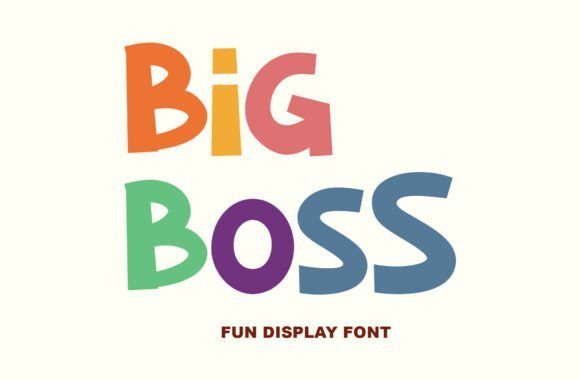
Adding a Dash of Fun to Your Designs: Introducing Big Boss Font
Who hasn’t had that moment when staring at a blank page, waiting for the perfect font to bring your design to life? The blank slate is daunting, but the possibilities are endless. For designers looking to inject some personality into their work, Big Boss Font is the perfect solution. This cheerful display font is designed to add a touch of whimsy and fun to any project.
Big Boss Font is more than just a font – it’s a statement piece. Its quirky letterforms and expressive shapes make it the ideal choice for projects that aim to convey joy and playfulness. Whether you’re designing a poster, invitation, or social media content, Big Boss Font is sure to capture attention and leave a lasting impression.
As a versatile font, Big Boss Font can be used across a wide range of creative projects, both digital and print. Its unique charm makes it a valuable asset for designers who want to stand out from the crowd and add a fun, unique touch to their work.
Big Boss Font Key Features
- Font Family: Big Boss is a sans-serif font family.
- Unique Characteristics: Features a bold and modern design, with clean lines and a high level of legibility, making it ideal for use in digital and print media.
Big Boss Font Review
Overall, I found the Big Boss Font to be a bold and eye-catching choice for headings and titles. The font’s unique design ✨ makes it perfect for use in action-packed or adventurous themes.
The font’s varied weights and styles allow for a lot of customization options. I particularly like the way the font’s curves and lines flow together to create a sense of movement and energy. The font is also highly legible, making it suitable for use in a variety of contexts.
- ✨ Unique and eye-catching design
- Variety of weights and styles for customization
- Highly legible and easy to read
- Perfect for action-packed or adventurous themes
- ⚠️ May be too bold or overwhelming for certain contexts
- ⚠️ Limited support for certain languages or character sets
Overall, I think the Big Boss Font is a great choice for designers looking to add some excitement and energy to their projects. However, it’s essential to use it thoughtfully and consider the context in which it will be used.
Tips for Getting the Most Out of Big Boss Font
Use Big Boss Font for bold headlines and titles to add a touch of sophistication.
Use Big Boss Font for:
- Bold headlines and titles
- Brand logos and letterheads
- Business cards and resumes
Alternatives to Big Boss Font for Designers
Lato is a modern sans-serif font that’s highly legible and versatile. It’s ideal for use in digital and print designs, and works well for body text, titles, and headings. Compared to Big Boss Font, Lato has a more rounded feel, making it a great choice for designs that require a friendly and approachable look.
Q: Is Big Boss Font available in different weights and styles?
Yes, Big Boss Font includes a range of weights and styles, from Light to Bold, as well as italic and condensed variations. This allows designers to create visually appealing and consistent typography across different applications and designs.